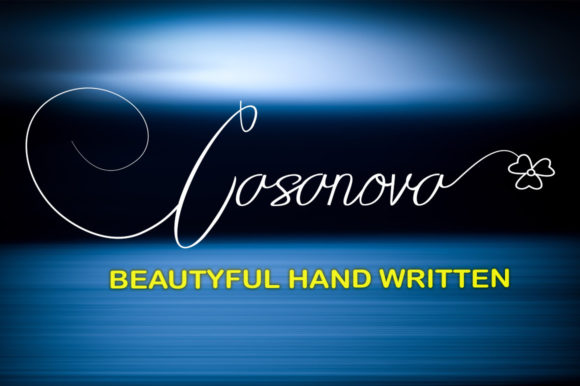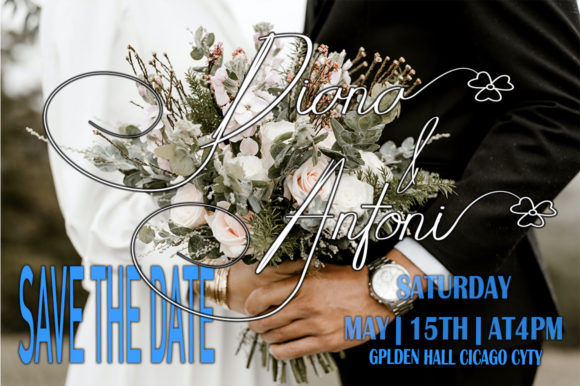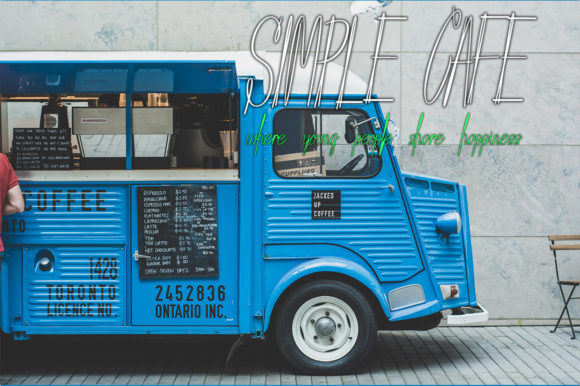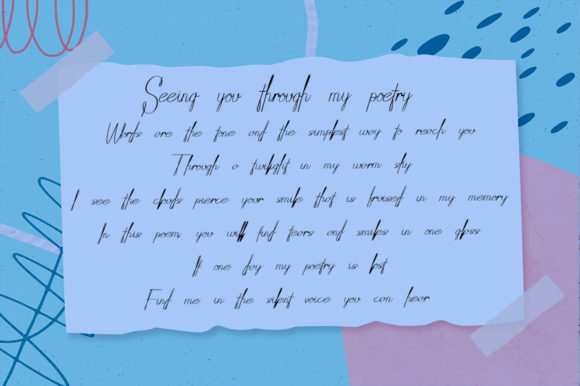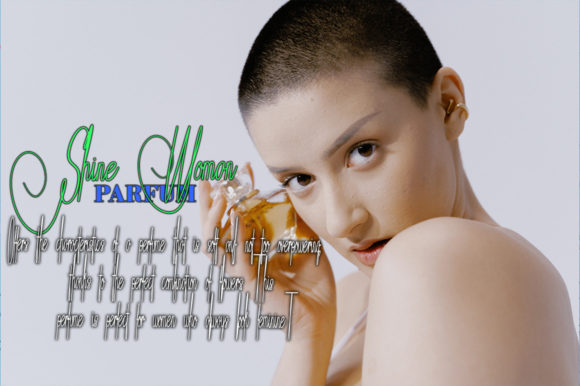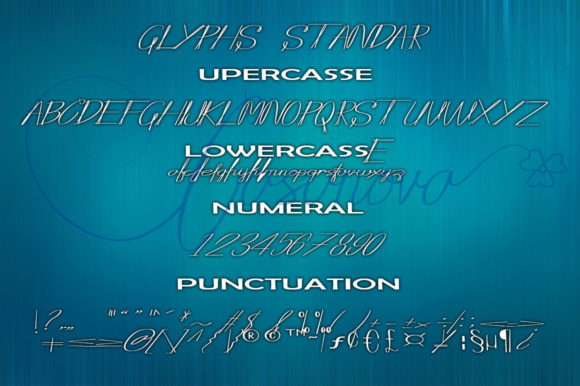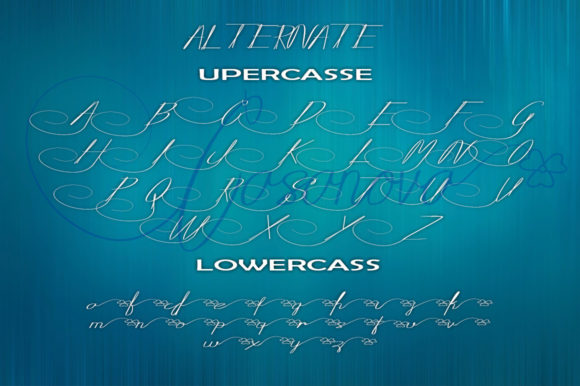
Casanova Font
About Casanova Font
Casanova is a lovely and timeless handwritten font. It is the best choice for creating eye-catching logos, branding, and quotes. Every letter has a unique and beautiful touch, which will make your design come alive. This font is PUA encoded which means you can access all of the glyphs and swashes with ease!